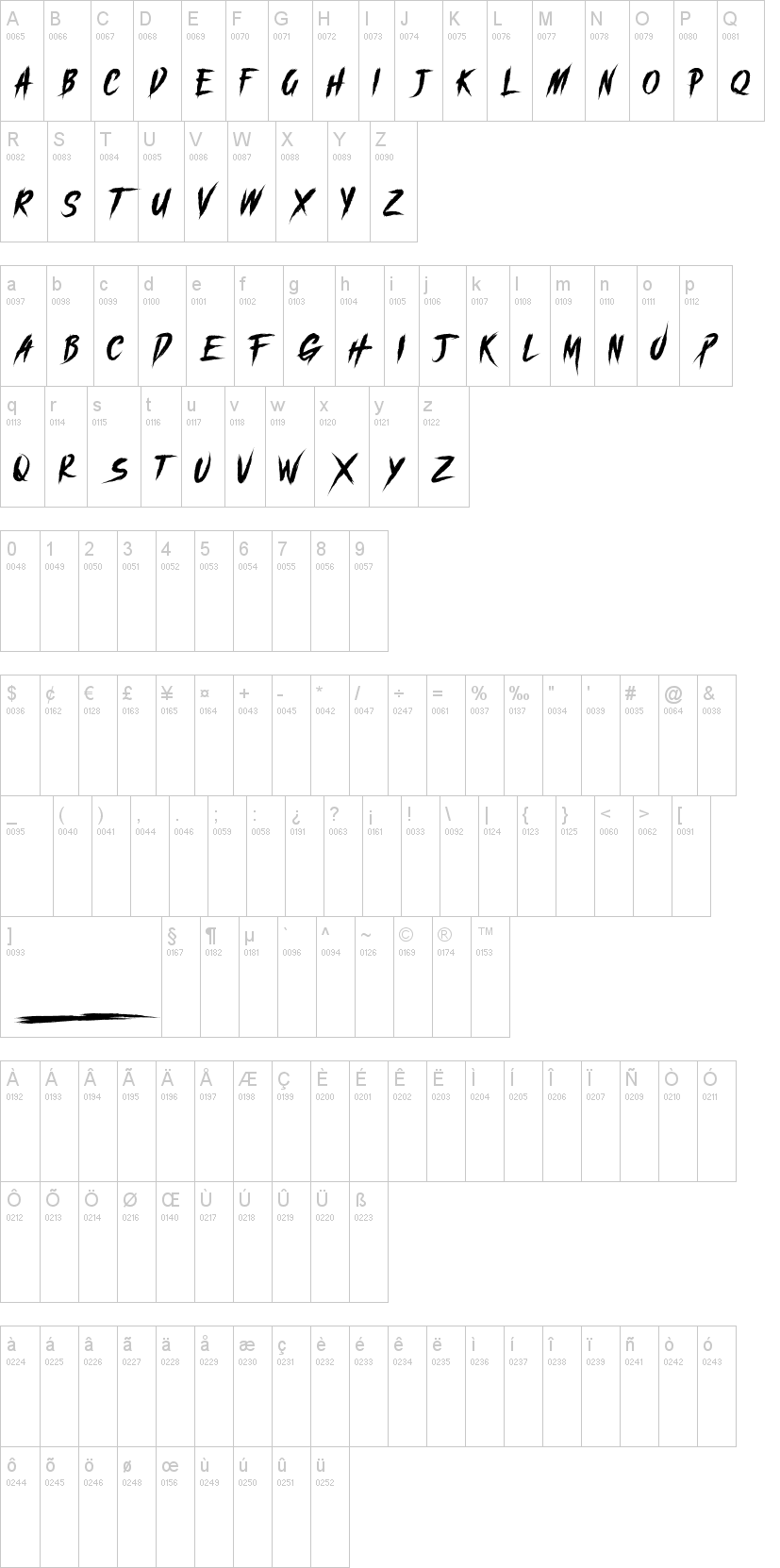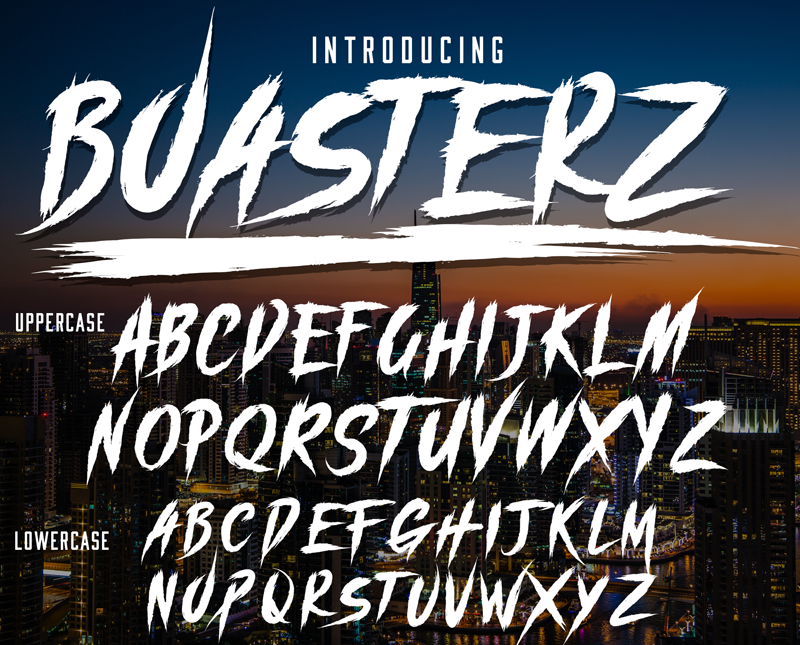
Boasterz
Note of the authorFont: Boasterz
Type: Brush Typeface
- Special Hand-made Brush Typeface
- Perfect for product branding, band text and etc
- Available in uppercase and lowercase